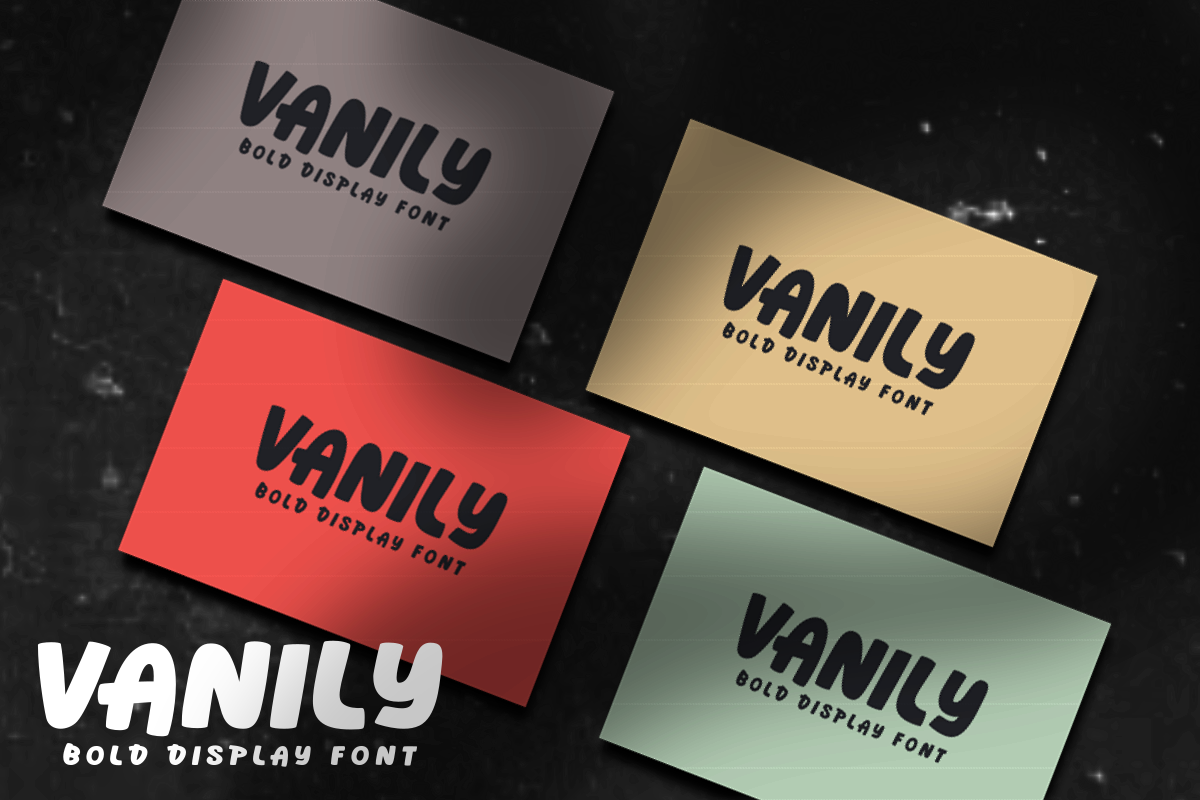
Vanily Display Font
Vanily
Introducing Vanily Display Font - a stylish all caps font.
Great for posters, social media, youtube thumbnails, websites, book covers, stickers cards and many more!